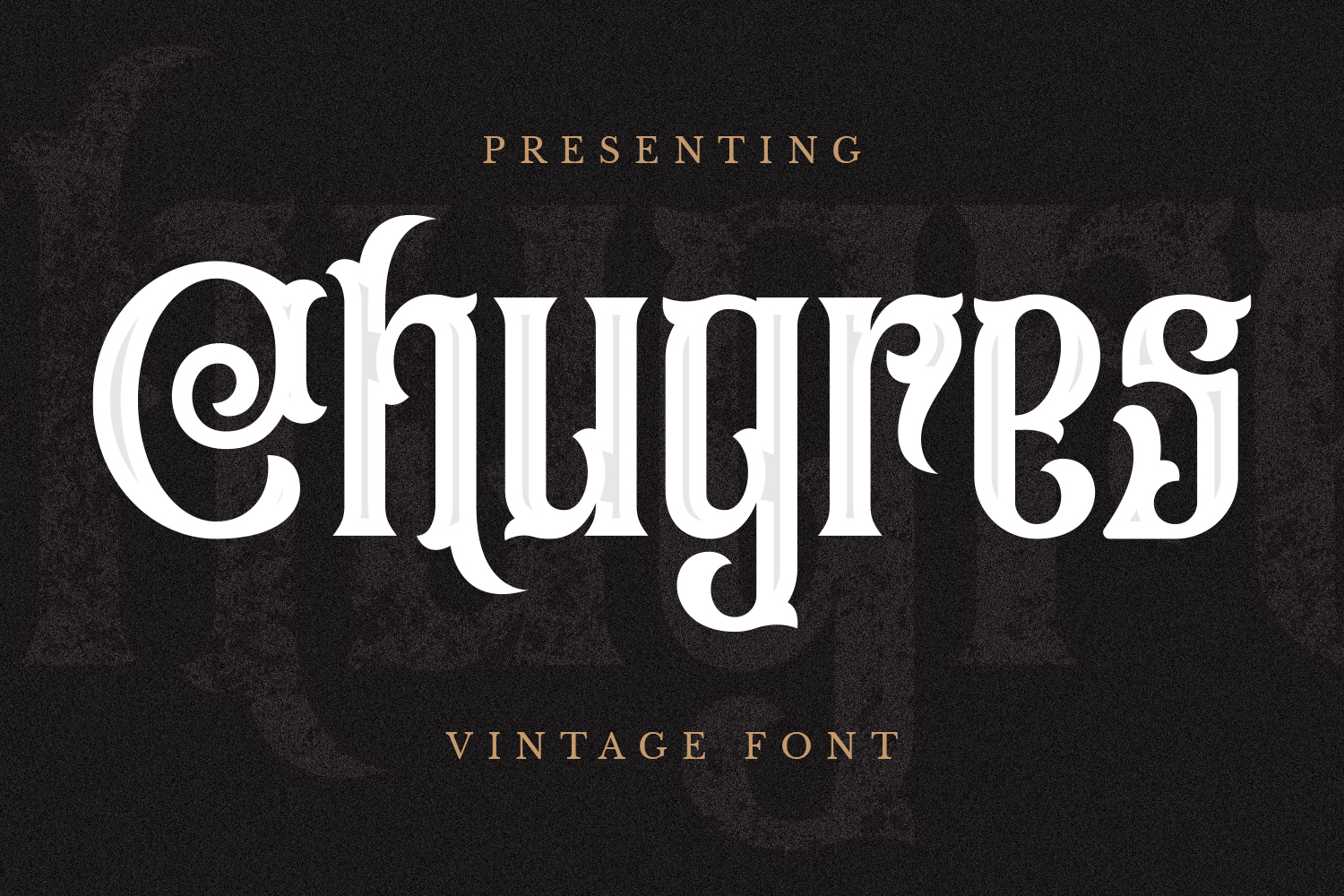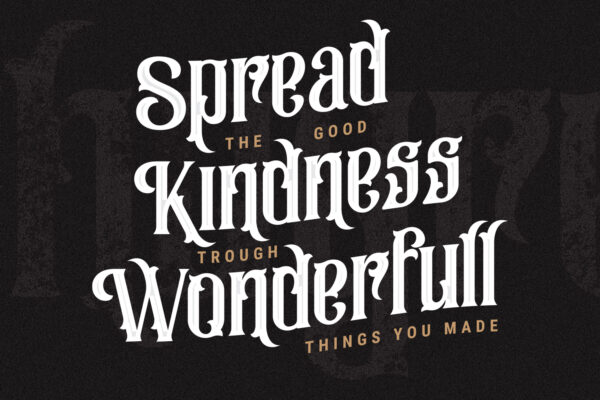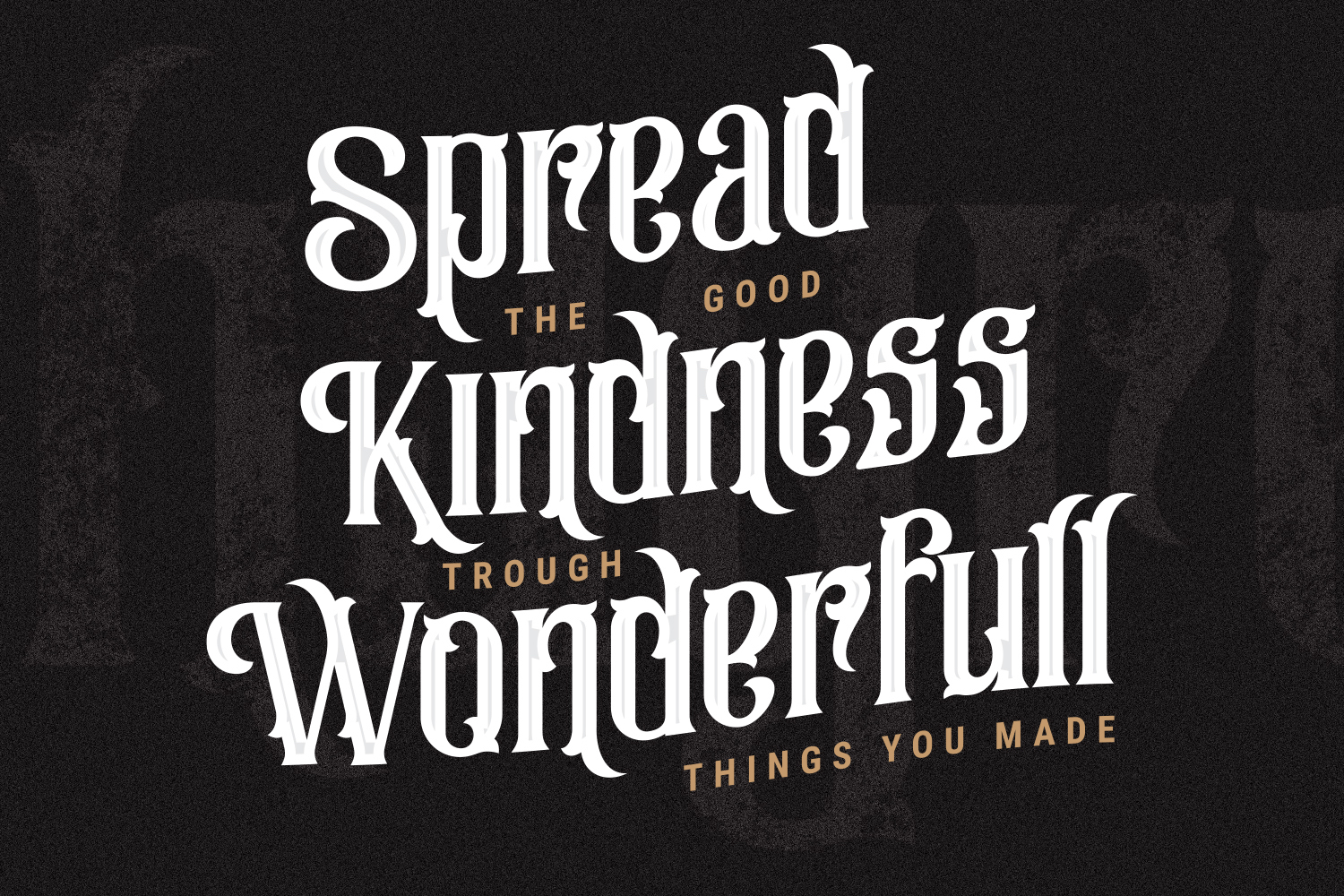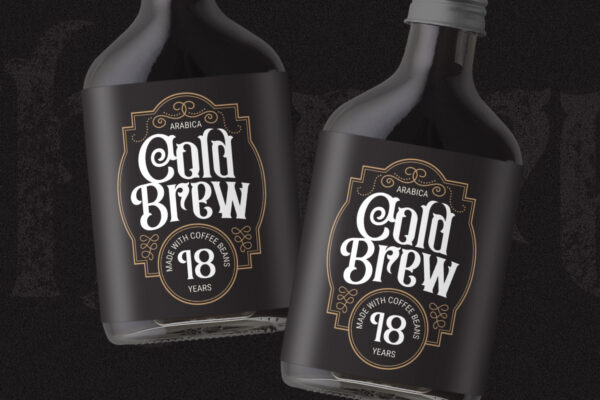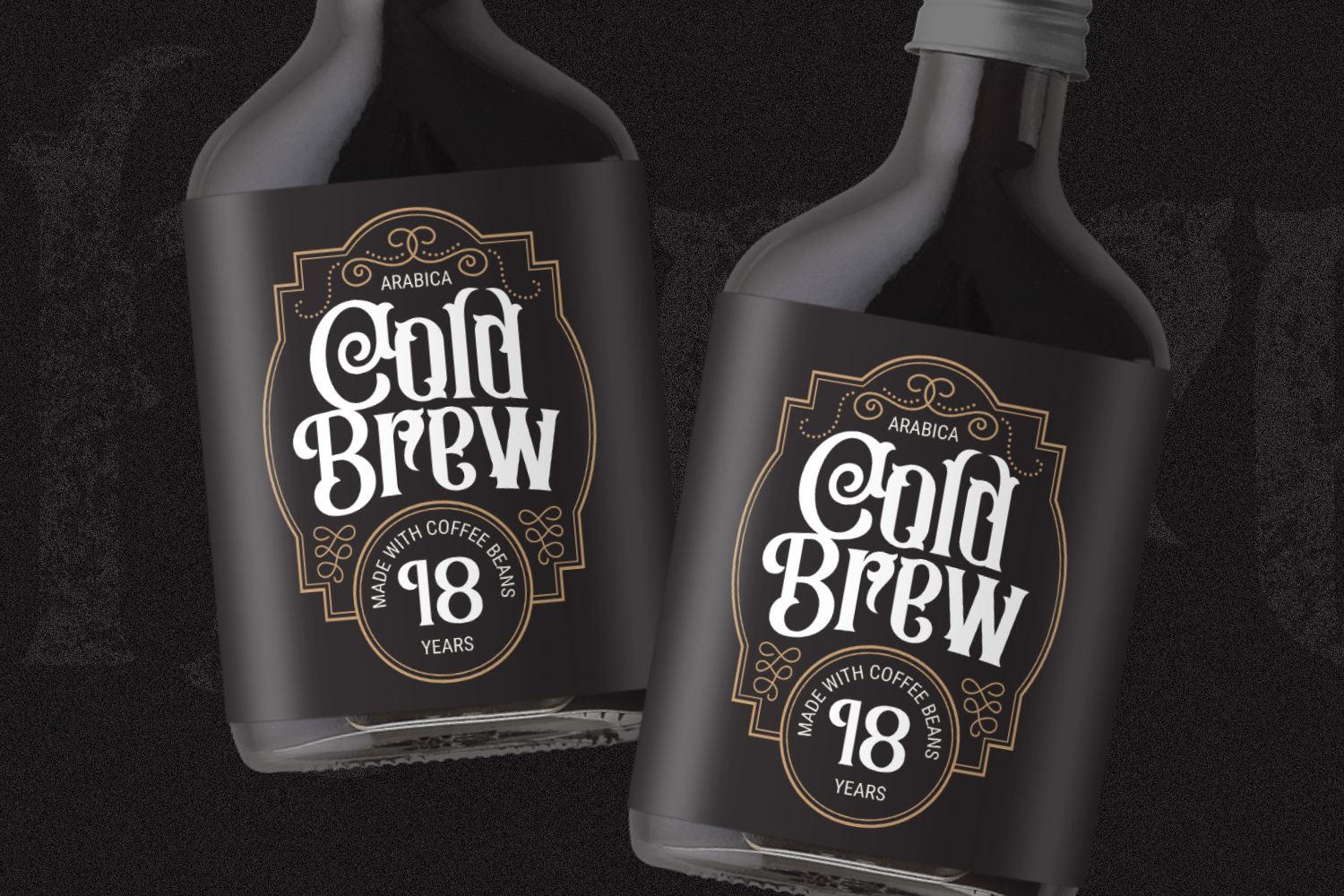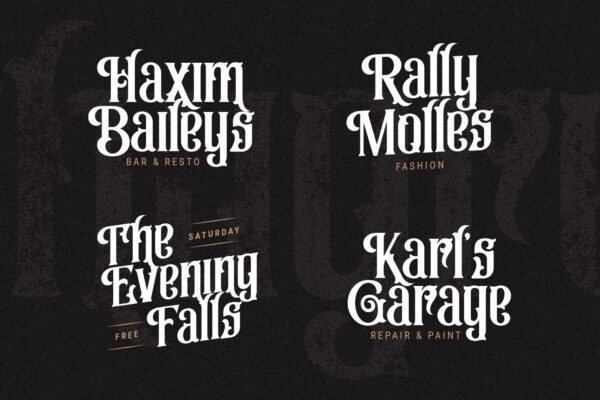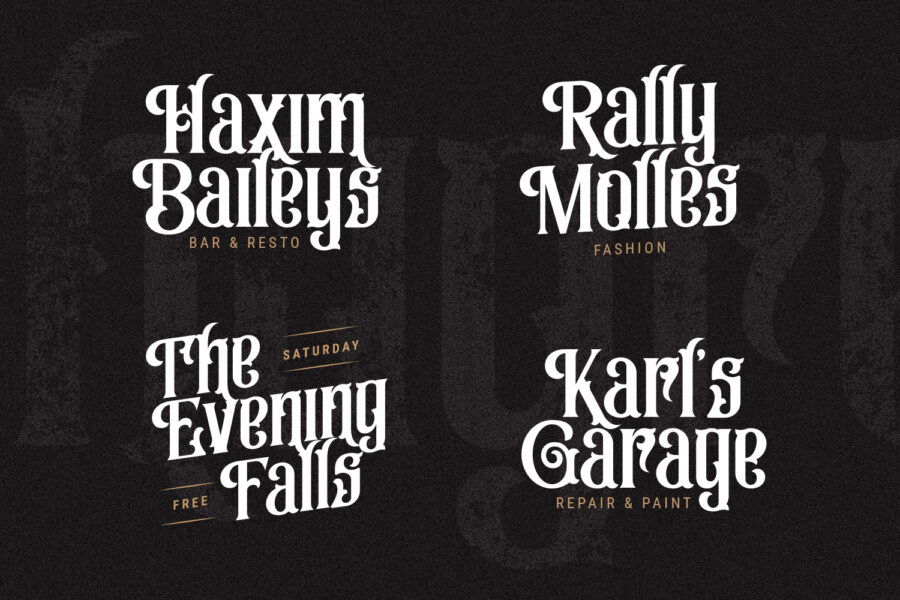
Chugres is a bold and striking vintage font inspired by old-school signage and classic gothic typography. With its tall, condensed letterforms and ornamental curves, this font evokes a sense of heritage and timeless style. It’s perfect for branding, packaging, and headlines that need to stand out with a sense of character and historical flair.
The font supports multilingual characters, full punctuation, and both uppercase and lowercase letters, making it versatile for various uses. Whether you’re designing a craft beverage label, a music poster, or a fashion logo, Chugres delivers a bold personality with vintage charm
Chugres